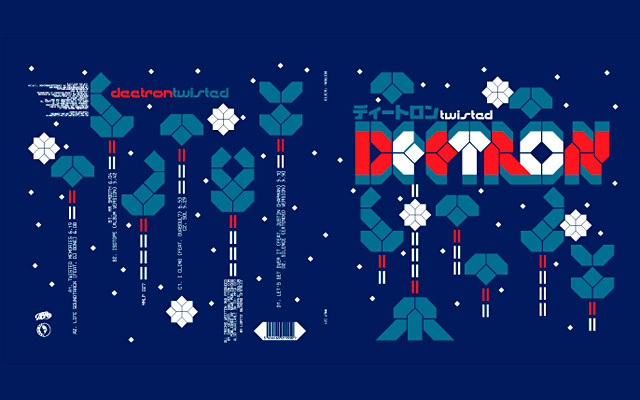
Journey into the realm of typography, where BD Panzer Font reigns supreme, a geometric stencil font poised to unleash your creative prowess. Inspired by the structured forms of modular illustrations and the bold aesthetic of type designs, BD Panzer beckons you to embark on a journey of limitless possibilities.
Unleash the inner artist within, as BD Panzer transforms your digital canvas into a playground of creativity. With its clean lines and sharp angles, this font is a symphony of precision, inviting you to craft designs that exude modernity and sophistication.
Picture the striking impact of your fitness tank, emblazoned with a motivational message rendered in the bold strokes of BD Panzer. Its powerful presence commands attention, fueling your drive to push beyond limits and achieve greatness.
BD Panzer is more than just a font; it's a catalyst for self-expression, a tool that empowers you to communicate your message with clarity and impact. Its versatile nature adapts seamlessly to a myriad of design applications, from sleek logos and eye-catching posters to captivating social media posts.
Embrace the allure of BD Panzer and unlock a world of typographic wonders. Let your imagination soar as you create designs that resonate with your audience, leaving an indelible mark on their minds.